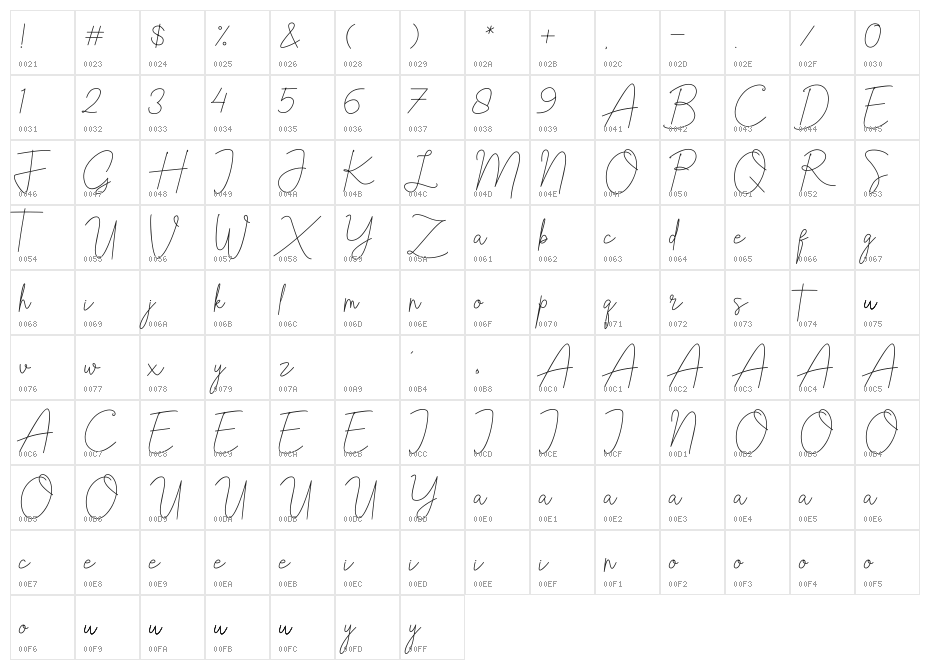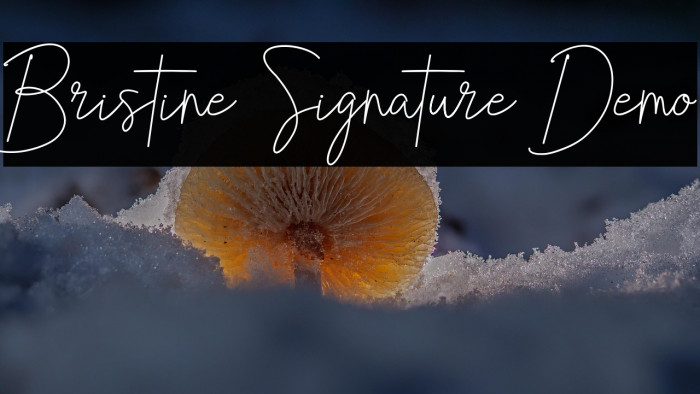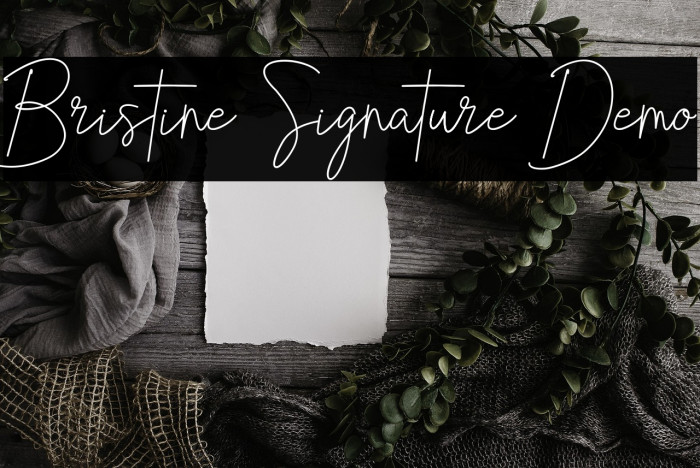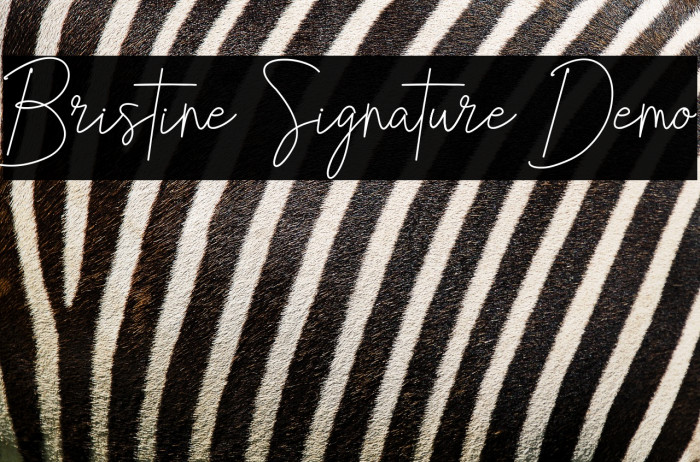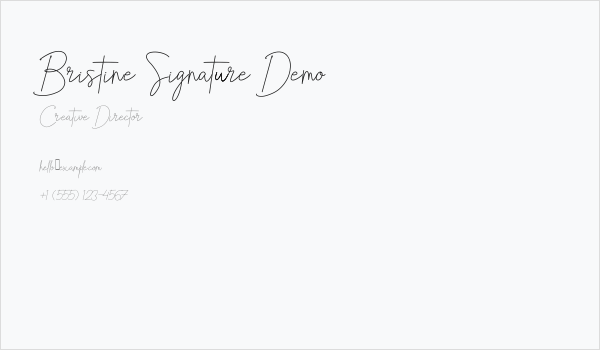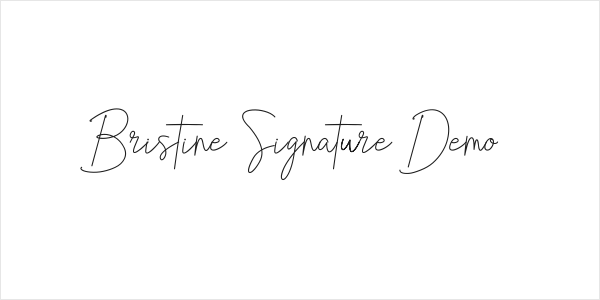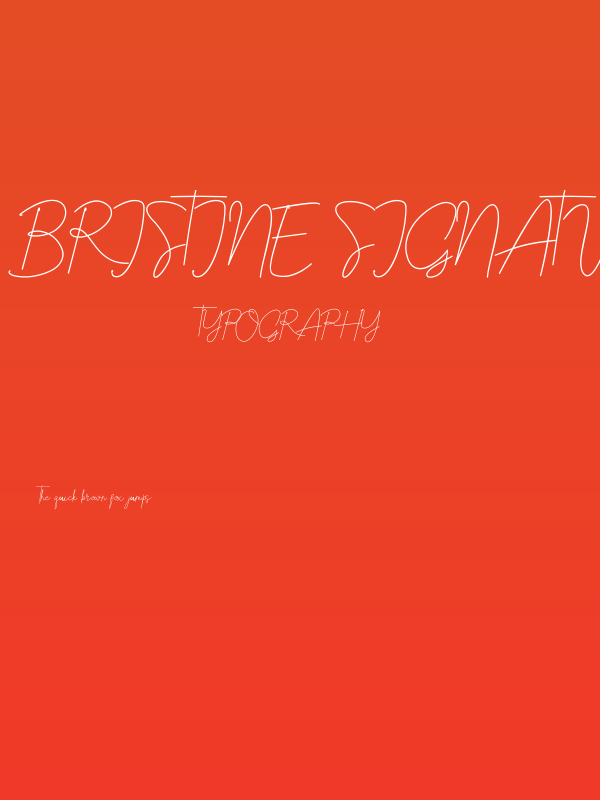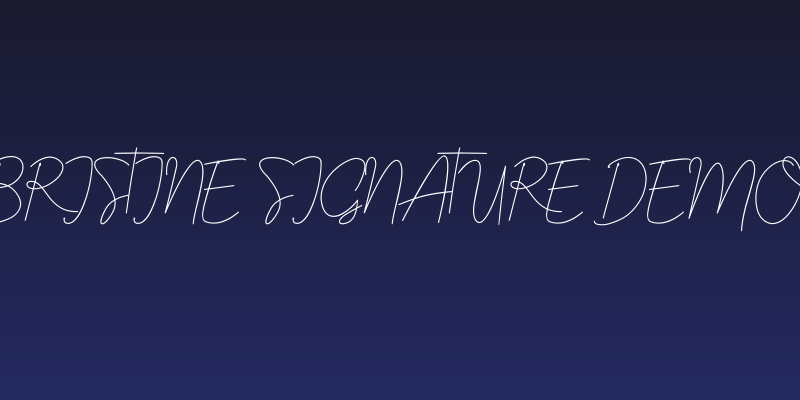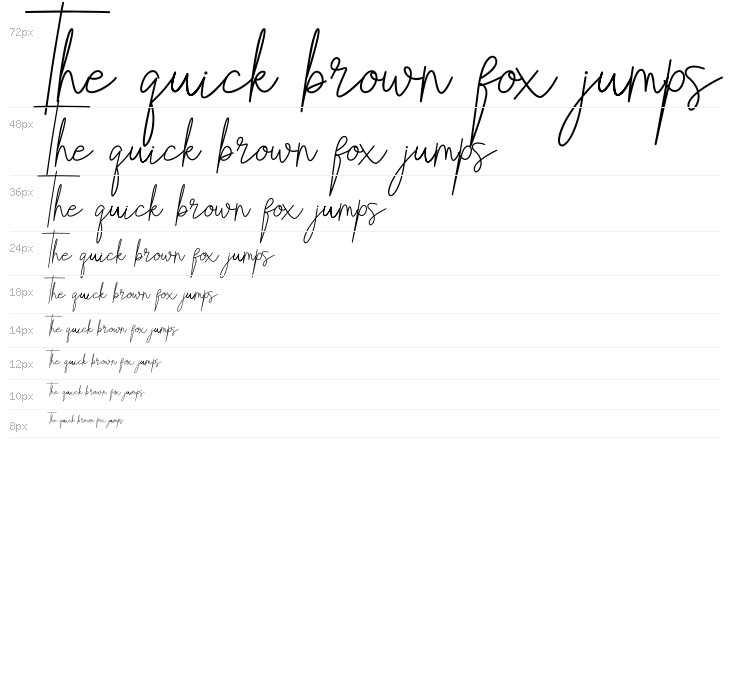
Bristine Signature Demo Font
Bristine Signature Demo Description
This font features a flowing, cursive style that mimics the elegance of a handwritten signature. The uppercase letters are tall and slender, with a graceful, looping design that adds a touch of sophistication. The lowercase letters maintain a consistent fluidity, connecting seamlessly in a way that enhances readability while preserving an artistic flair. Numbers and special characters are crafted with the same attention to detail, ensuring a cohesive look across all text. The strokes are thin and delicate, giving the font a light and airy appearance. This font is ideal for projects that require a personal touch, such as invitations, branding, and stationery.
| Overall Style | Elegant, Handwritten |
| Use Case | Logos, Invitations, Stationery |
| Proposed Projects | Ideal for wedding invitations, personal branding, elegant stationery, and artistic logos. |